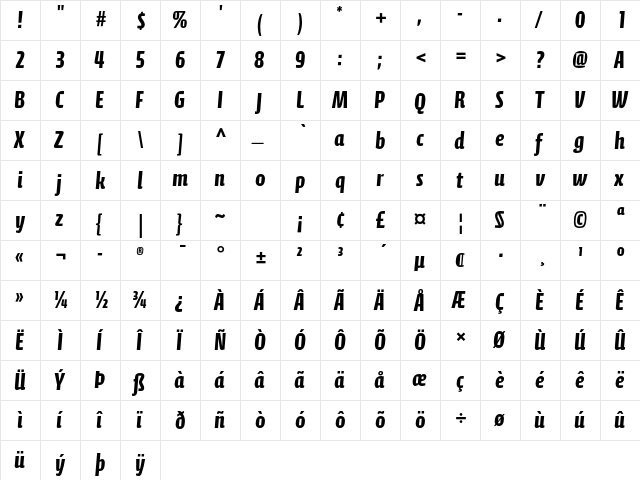
Calcite Pro Bold
| Designer | Akira Kobayashi |
Design Context for Calcite Pro Typeface
Calcite Pro offers clean, dependable letterforms without strong stylistic allegiance, making it a practical choice for designers who need flexibility. The heavy weight commands attention and anchors typographic hierarchies.